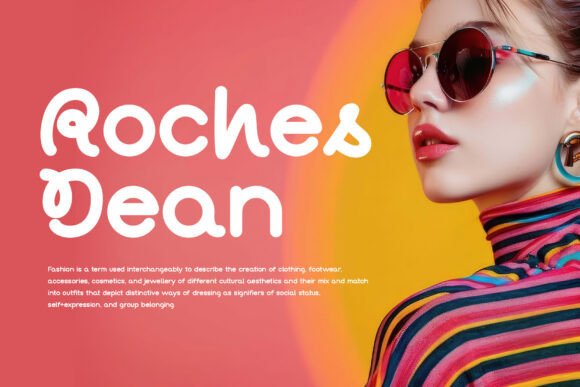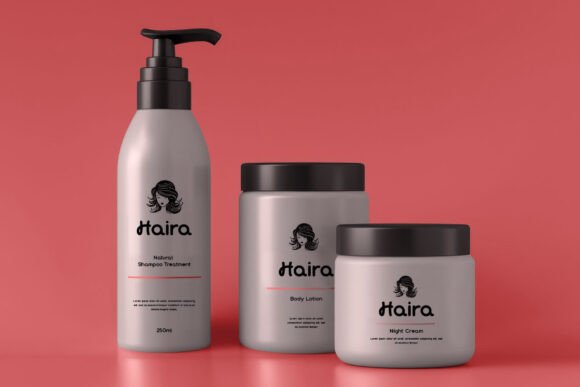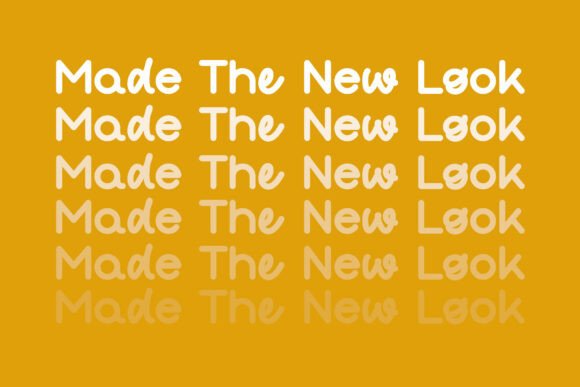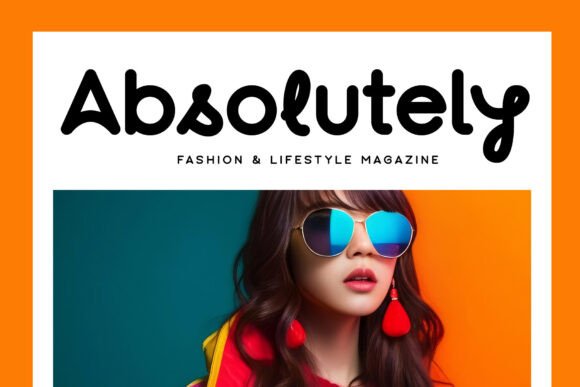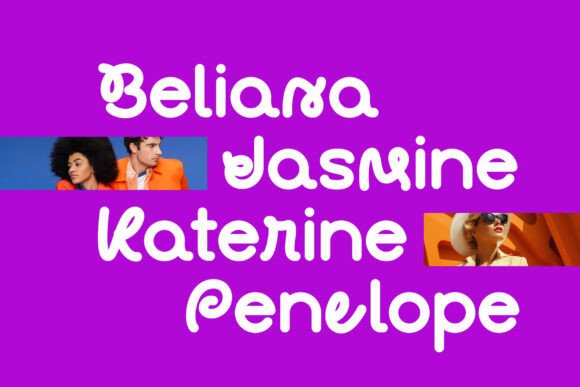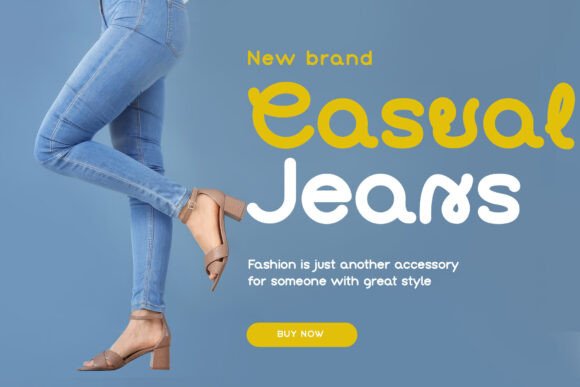
Bepory Font: Elevate Your Designs with a Unique Casual Sans-Serif
In the world of design, fonts play a pivotal role in conveying messages, evoking emotions, and creating lasting impressions. Among the myriad of fonts available, Bepory stands out as a casual sans-serif font that brings a fresh and vibrant aesthetic to the table. With its unique character, Bepory is not just a font; it’s a design statement that can elevate your projects to new heights of creativity and professionalism.
The Unique Character of Bepory
Bepory’s design is centered around creating a stunning visual impact with a strong and fun style. This balance makes it incredibly versatile, suitable for a wide range of applications from chic lifestyle designs to more playful and casual projects. Whether you’re working on logotypes, advertisements, watermarks on photography, stationery, or branding projects, Bepory provides the perfect blend of modernity and approachability.
Perfect for Creative Endeavors
What makes Bepory an ideal choice for designers and crafters is its adaptability. This font is not limited to a specific genre of design; rather, it can be seamlessly integrated into various creative endeavors. Here are some areas where Bepory truly shines:
- Logotypes and Branding: Create memorable brand identities with Bepory’s distinctive and friendly appearance.
- Advertisements: Stand out in the crowded digital and print ad space with Bepory’s eye-catching style.
- Photography Watermarks: Add a professional yet subtle touch to your photos with Bepory.
- Stationery and Invitations: Bring a modern and fun vibe to your paper designs.
- Magazines, Flyers, and Displays: Engage your audience with Bepory’s readability and charm.
- Corporate Branding and Product Design: Offer a fresh perspective to your business projects and product labels.
Mix and Match for Endless Possibilities
One of the key advantages of using Bepory is the ease with which it can be mixed and matched with other design elements. Its friendly and approachable style serves as a versatile foundation that can be paired with various graphics, colors, and textures to create more attractive and awesome design projects. This flexibility allows designers to experiment with different combinations, ensuring that each project is unique and tailored to its specific needs.
Why Choose Bepory?
Choosing Bepory for your design projects comes with numerous benefits:
- Modern and Fun Touch: Bepory brings a contemporary and playful feel to your designs, making them more engaging.
- Versatility: Suitable for a wide range of applications, from digital to print.
- Easy to Read: Despite its unique style, Bepory maintains high readability, ensuring your message is always communicated effectively.
- Customizable: The font’s simplicity allows for easy customization to fit your project’s tone and style.
Bepory is more than just a font; it’s a design companion that can help you achieve your creative goals. Its unique blend of casualness and professionalism, coupled with its versatility, makes it an excellent choice for designers and crafters looking to make a statement. Whether you’re working on a branding project, a creative endeavor, or simply exploring your design skills, Bepory is sure to inspire and enhance your work. Embrace Bepory Font in your next project and experience the difference it can make.